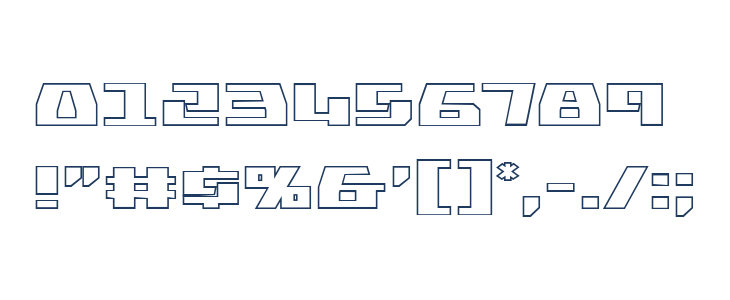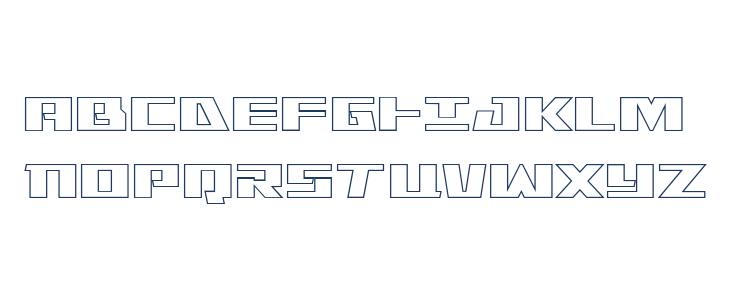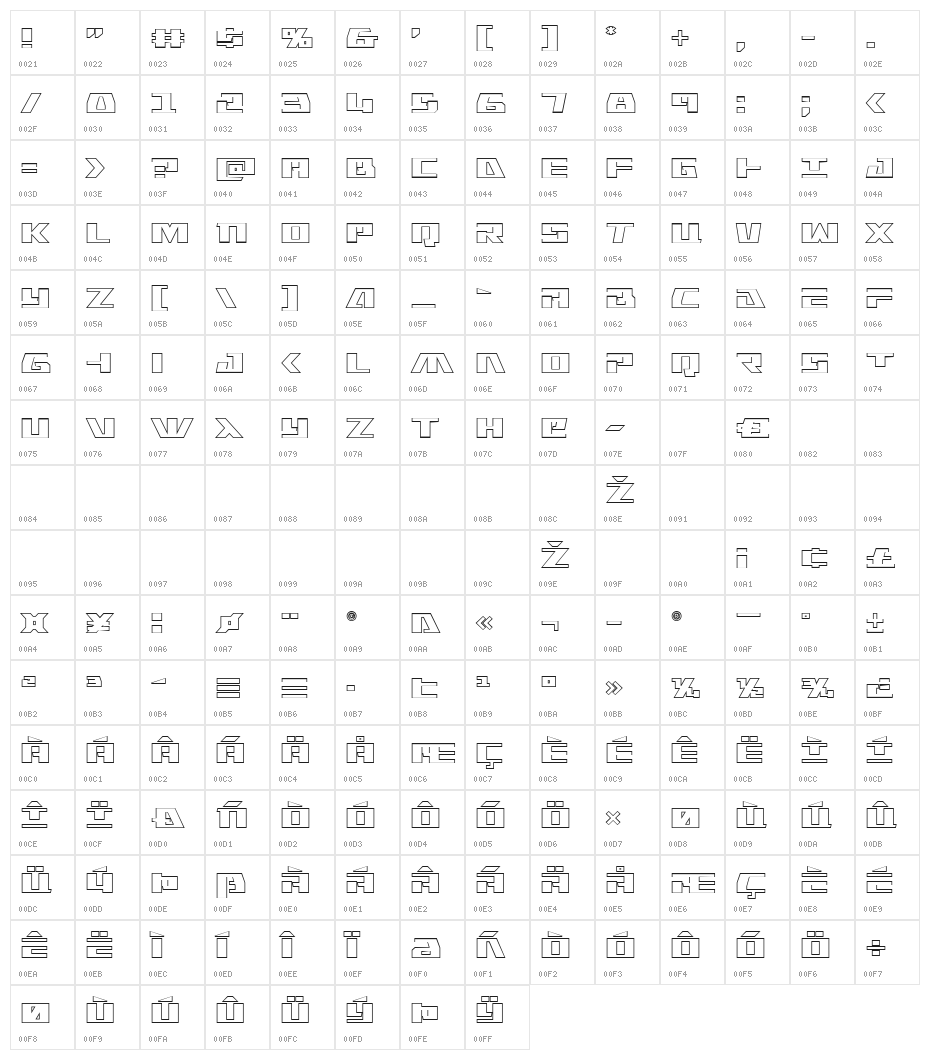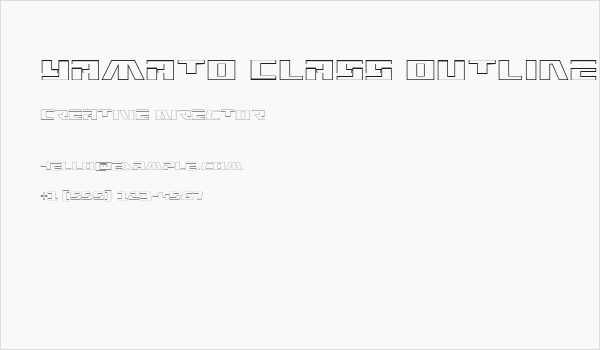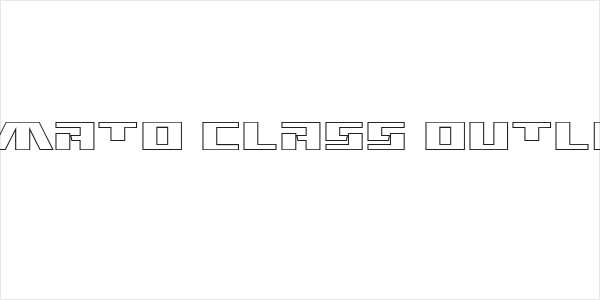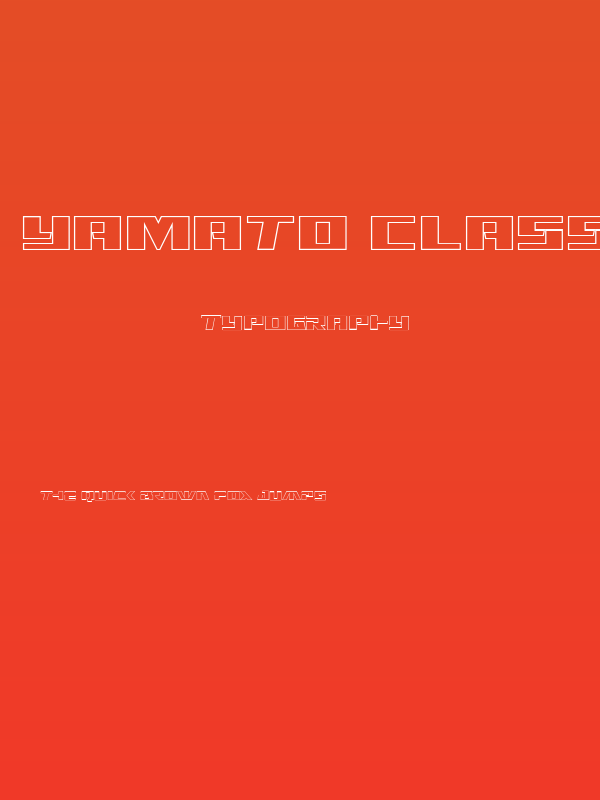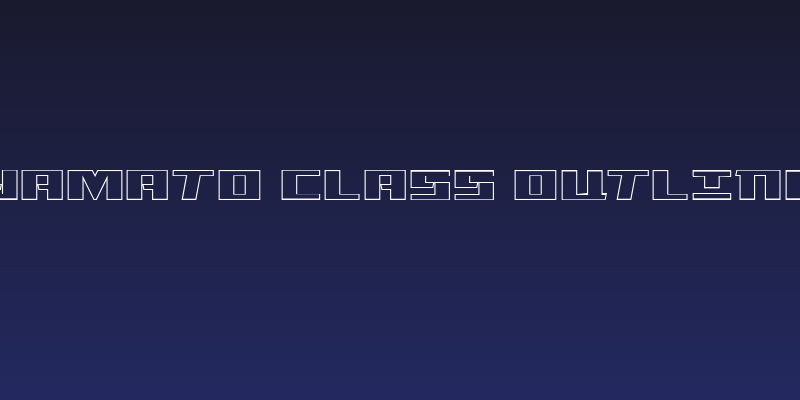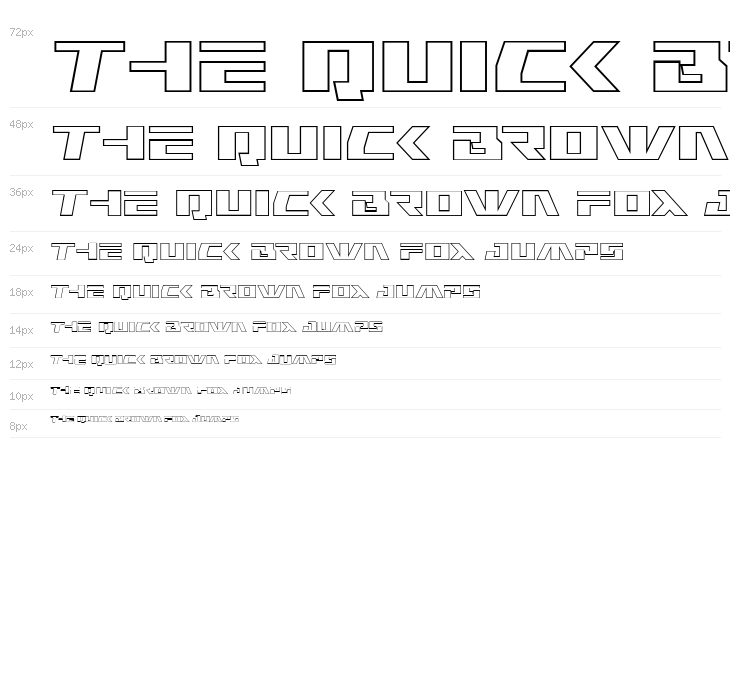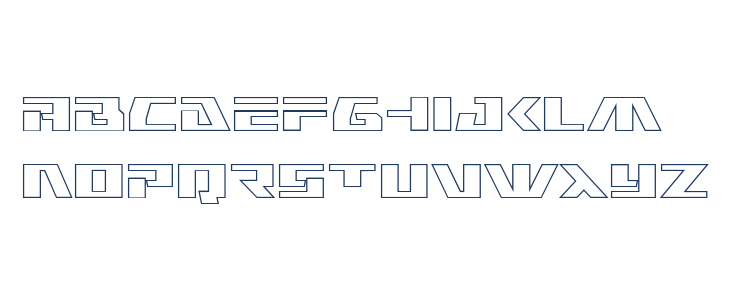
Yamato Class Outline Font
Yamato Class Outline Description
Geometric, angular outline font with sharp corners and a futuristic, mechanical appearance. All characters are uppercase with consistent line thickness and a technical, modular construction. The font features wide letterforms, straight lines, and a distinct sci-fi aesthetic.
| Overall Style | Futuristic, Decorative, Geometric |
| Use Case | Headlines, Logos, Posters, Display text |
| Proposed Projects | Tech branding, sci-fi posters, video game titles, digital interfaces, event flyers. |